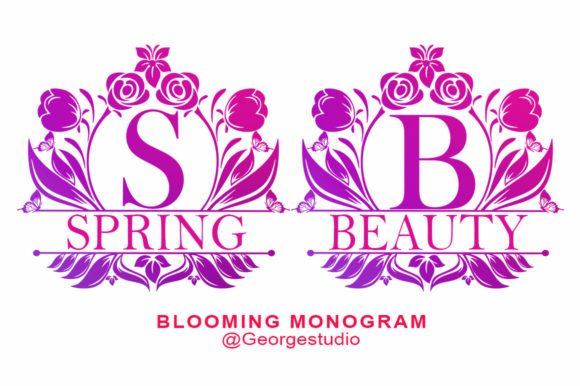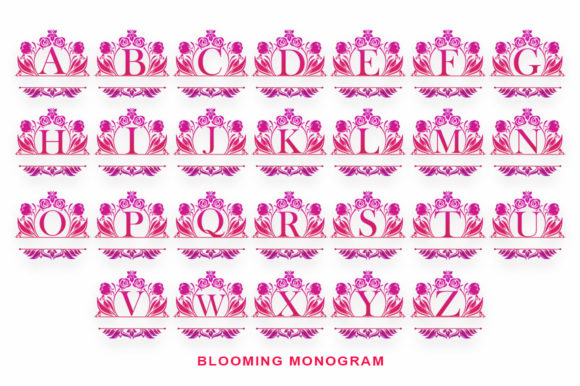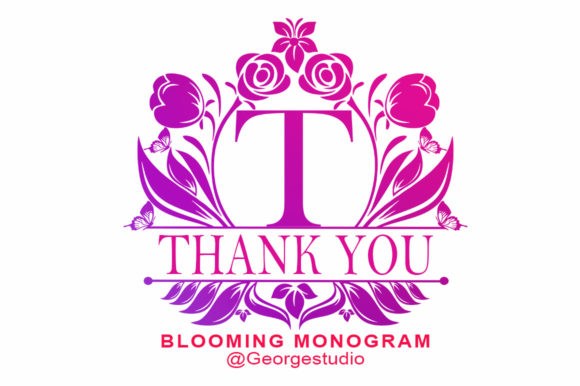
Blooming Monogram Font: Elevate Your Designs with Elegance and Charm
Are you searching for a font that exudes sophistication, whimsy, and romance? Look no further than the Blooming Monogram Font, a refined decorative font that is sure to capture your heart. With its charming ornaments and genuine feel, this font is perfect for designers and crafters seeking to create stunning wedding invitations, beautiful stationery art, eye-catching social media posts, and adorable greeting cards.
What is Blooming Monogram Font?
Blooming Monogram Font is a decorative font that boasts an elegant and refined aesthetic. Its unique charm lies in its intricate ornaments, which add a touch of whimsy and romance to any design. This font is perfect for those seeking to create beautiful and sophisticated designs that stand out from the crowd.
Key Features of Blooming Monogram Font
- Refined Decorative Font: Blooming Monogram Font features a refined and elegant design, making it perfect for creating sophisticated designs.
- Charming Ornaments: The font’s intricate ornaments add a touch of whimsy and romance to any design.
- Genuine Feel: The font’s genuine feel makes it perfect for creating designs that are both elegant and approachable.
- Versatile: Blooming Monogram Font can be used to create a wide range of designs, from wedding invitations to social media posts.
Uses for Blooming Monogram Font
Blooming Monogram Font is a versatile font that can be used for a variety of design projects. Here are some ideas to get you started:
- Wedding Invitations: Create stunning wedding invitations that set the tone for a beautiful and elegant wedding.
- Stationery Art: Design beautiful stationery art, including notecards, journals, and planners.
- Social Media Posts: Create eye-catching social media posts that stand out from the crowd.
- Greeting Cards: Design adorable greeting cards for special occasions, such as birthdays, anniversaries, and holidays.
Tips for Using Blooming Monogram Font
Here are some tips for getting the most out of Blooming Monogram Font:
- Experiment with Different Sizes: Experiment with different font sizes to create visual interest and hierarchy in your designs.
- Pair with Other Fonts: Pair Blooming Monogram Font with other fonts to create a unique and interesting design.
- Use Ornaments Wisely: Use the font’s charming ornaments wisely to add a touch of whimsy and romance to your designs.
Blooming Monogram Font is a refined decorative font that is sure to capture your heart. With its charming ornaments and genuine feel, this font is perfect for designers and crafters seeking to create stunning designs. Whether you’re creating wedding invitations, stationery art, social media posts, or greeting cards, Blooming Monogram Font is the perfect choice. So why wait? Fall in love with Blooming Monogram Font and elevate your designs with elegance and charm.